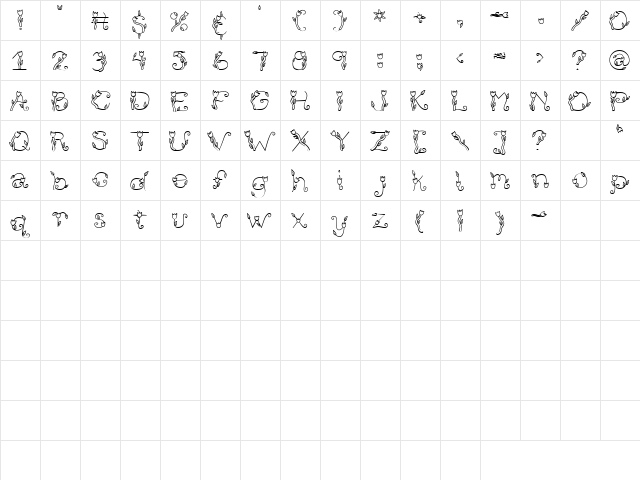
CK Tulips Regular Font Preview
CK Tulips Regular
CK Tulips Regular Font Details
Design Context for CK Tulips Typeface
CK Tulips is a composed and adaptable typeface that performs quietly and consistently across a wide range of design contexts.